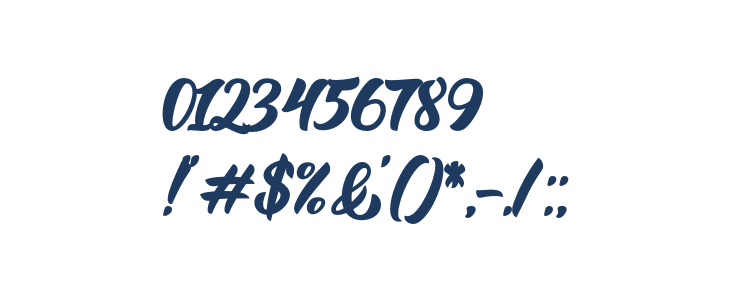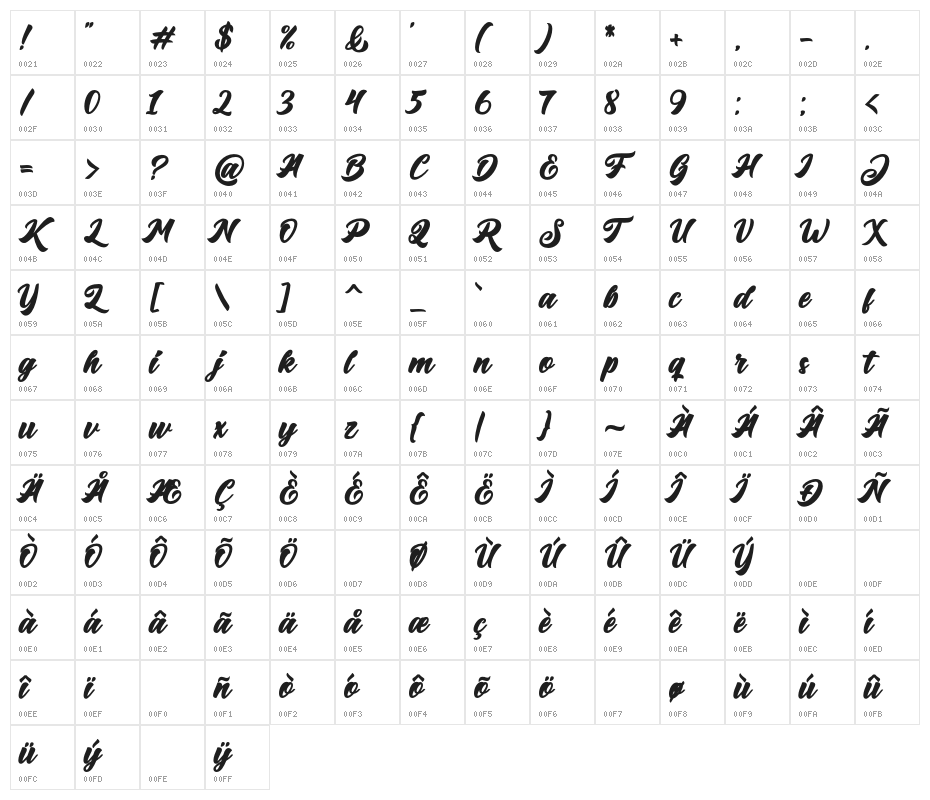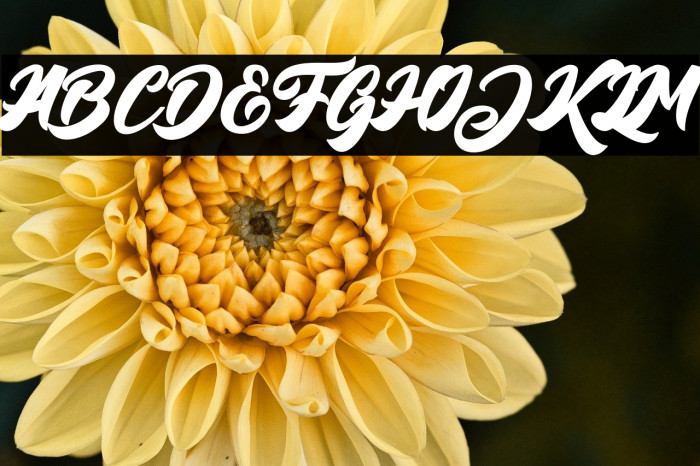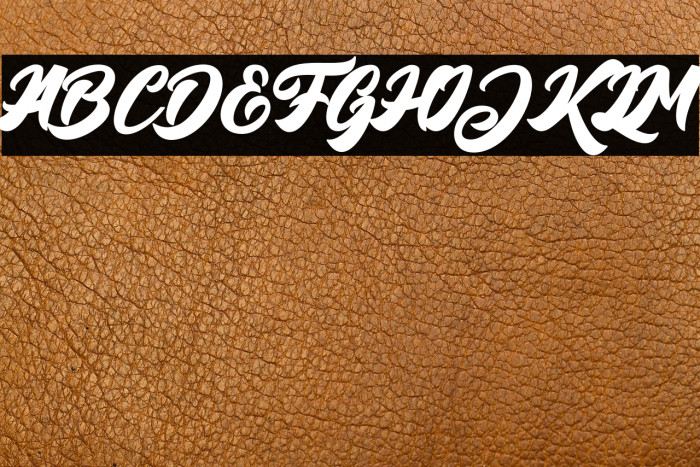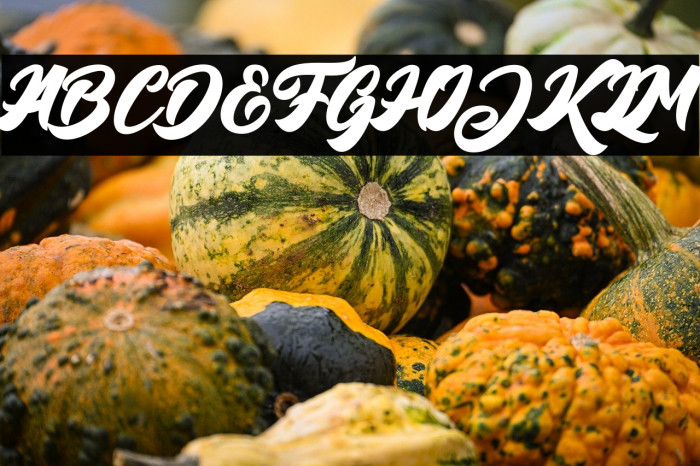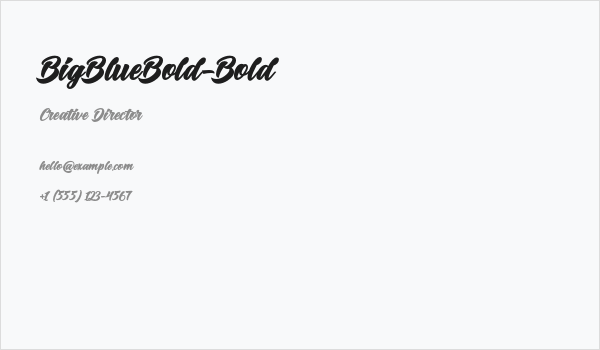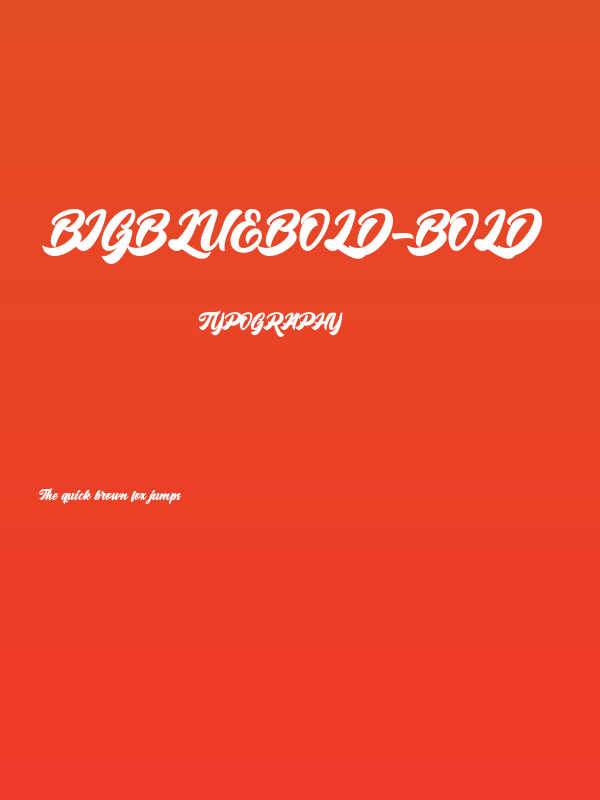
BigBlueBold-Bold Font
BigBlueBold-Bold Description
This font exhibits a bold and dynamic script style with a strong presence. The characters are interconnected, creating a fluid and continuous flow, which is characteristic of cursive fonts. The strokes are thick and consistent, providing a robust and impactful appearance. The uppercase letters are particularly elaborate, with sweeping curves and loops that add a sense of elegance and flair. The lowercase letters maintain the same boldness, ensuring readability while preserving the decorative nature of the font. The numbers and special characters are equally bold, maintaining the overall aesthetic. This font is ideal for making a statement, capturing attention with its bold and artistic design.
| Use Case | Logos, Headlines, Branding |
| Proposed Projects | Ideal for branding, logos, headlines, and any project requiring a bold, artistic touch. |